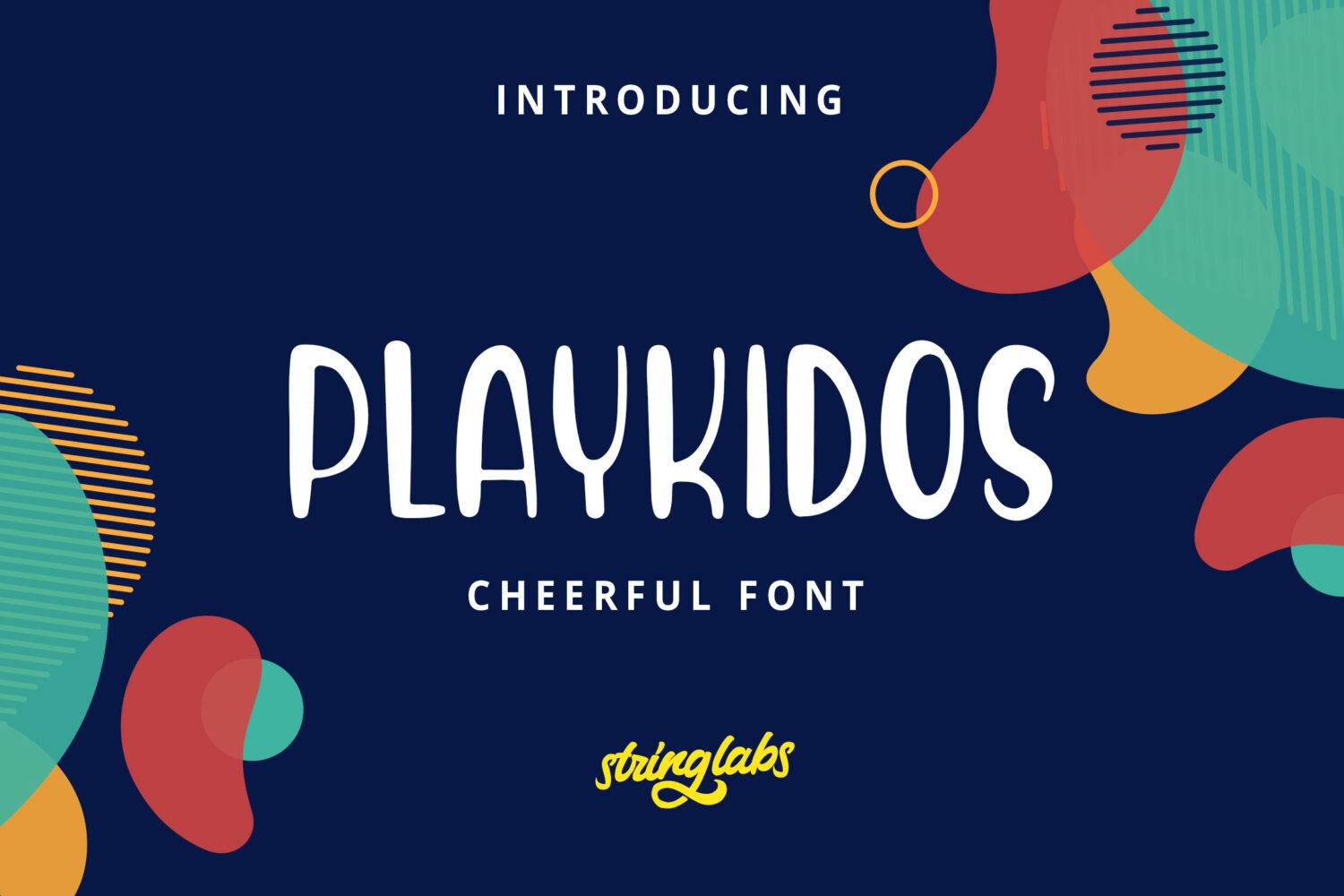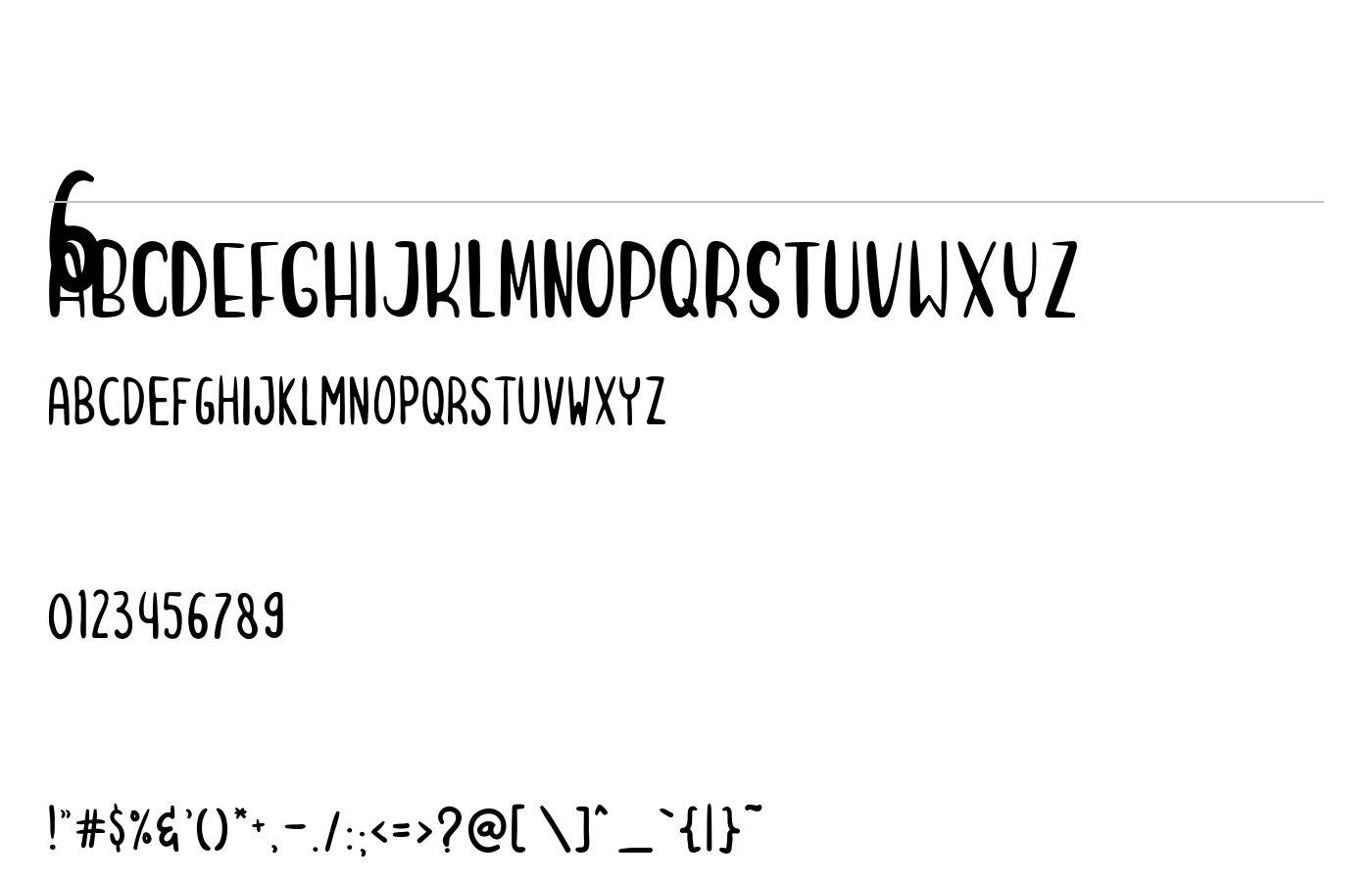
Playkidos is a playful, narrow sans serif font with a hand-drawn, informal feel that makes it perfect for kid-focused designs. Its tall, rounded letterforms and uneven stroke widths give it a friendly, approachable personality, ideal for use in children’s books, posters, and playful branding. The font’s simplicity and clear readability also make it suitable for headlines and casual, fun web content.
Playkidos
About Playkidos